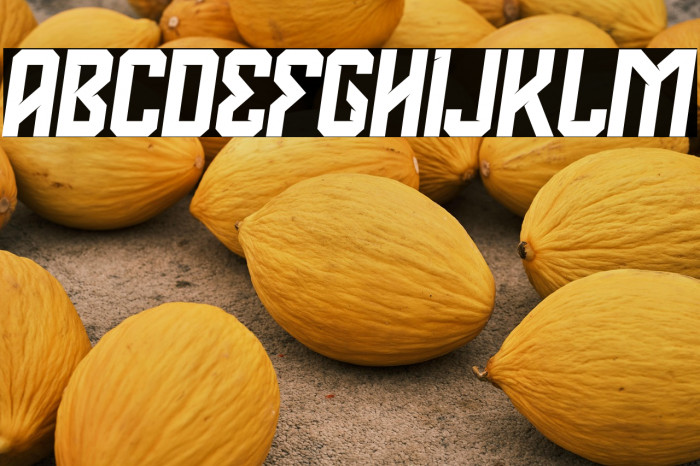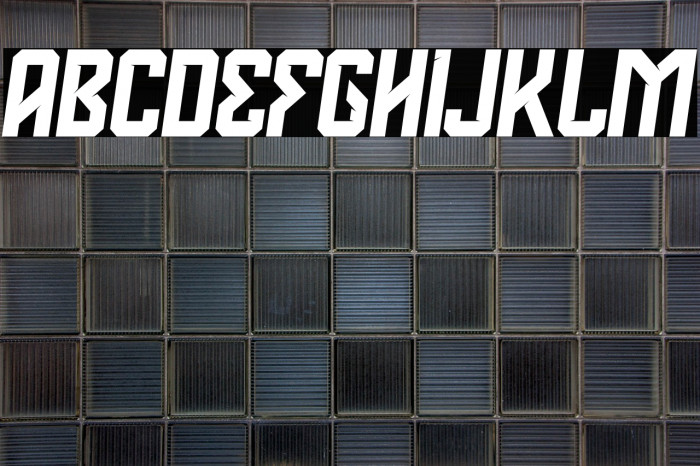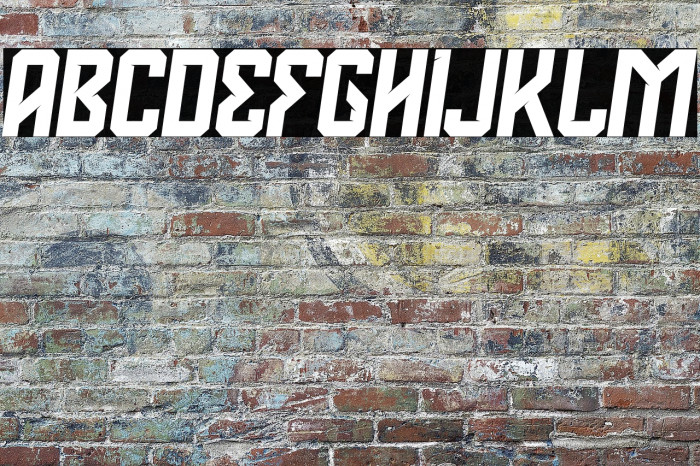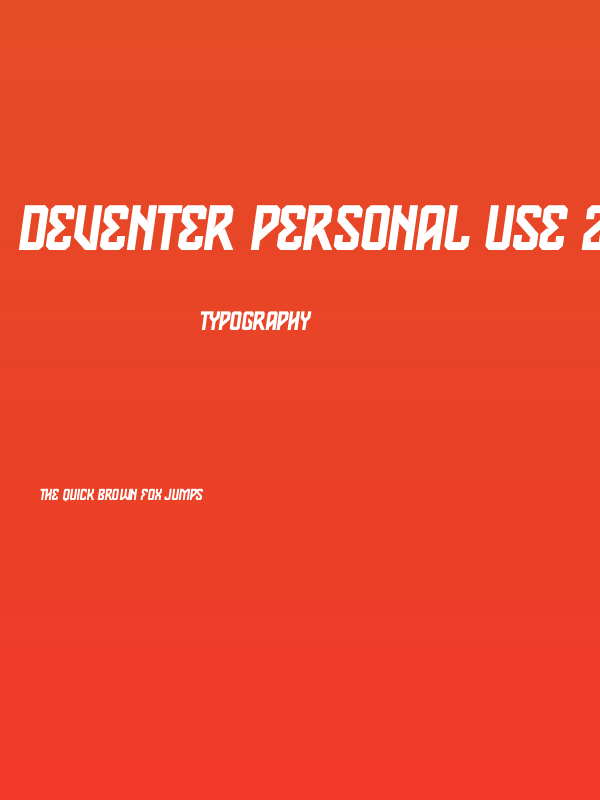
Deventer PERSONAL USE 2 Font
Deventer PERSONAL USE 2 Description
This font features a bold, angular design with a modern and edgy aesthetic. The characters are sharply defined with a distinct geometric style, giving it a futuristic and dynamic appearance. The uppercase and lowercase letters maintain a consistent angularity, while the numbers and special characters follow the same design principles, ensuring a cohesive look across all elements. The font's strong presence makes it suitable for attention-grabbing headlines and impactful designs.
| Proposed Projects | Ideal for branding, posters, video game graphics, and any project requiring a bold, modern look. |